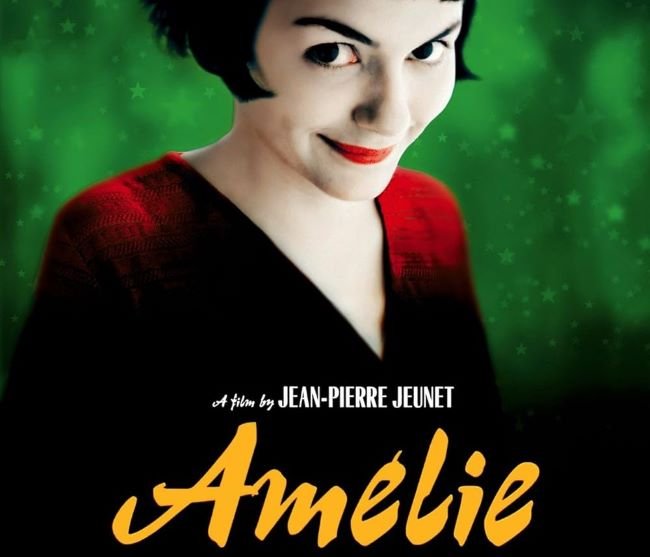
Amelie font
Amelie font floats through the title sequence of Jean-Pierre Jeunet’s 2001 French masterpiece the way the film itself moves through Montmartre — with a light, slightly tilted joy that makes everything feel enchanted. The handwritten-style script lettering is warm, imperfect, and deeply personal, its organic flow perfectly embodying the inner life of a woman who transforms the world around her through secret acts of kindness and imagination. No official release exists, but two personal-use alternatives capture that same playful, calligraphic warmth: Miss Daisy, with its loose, cheerful handwriting energy, and Dakota Artha, which brings a more flowing, romantic script quality to the same whimsical territory.